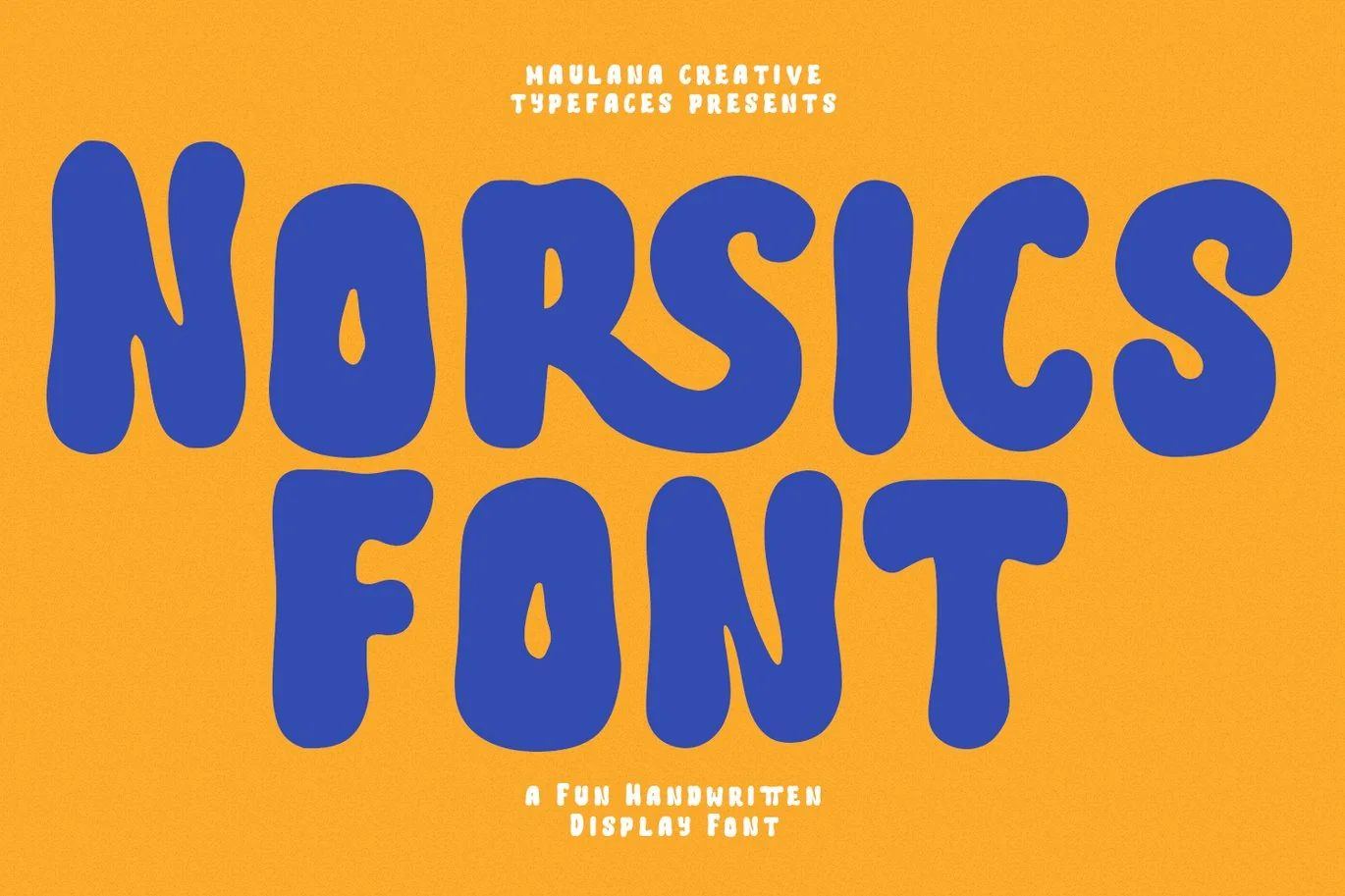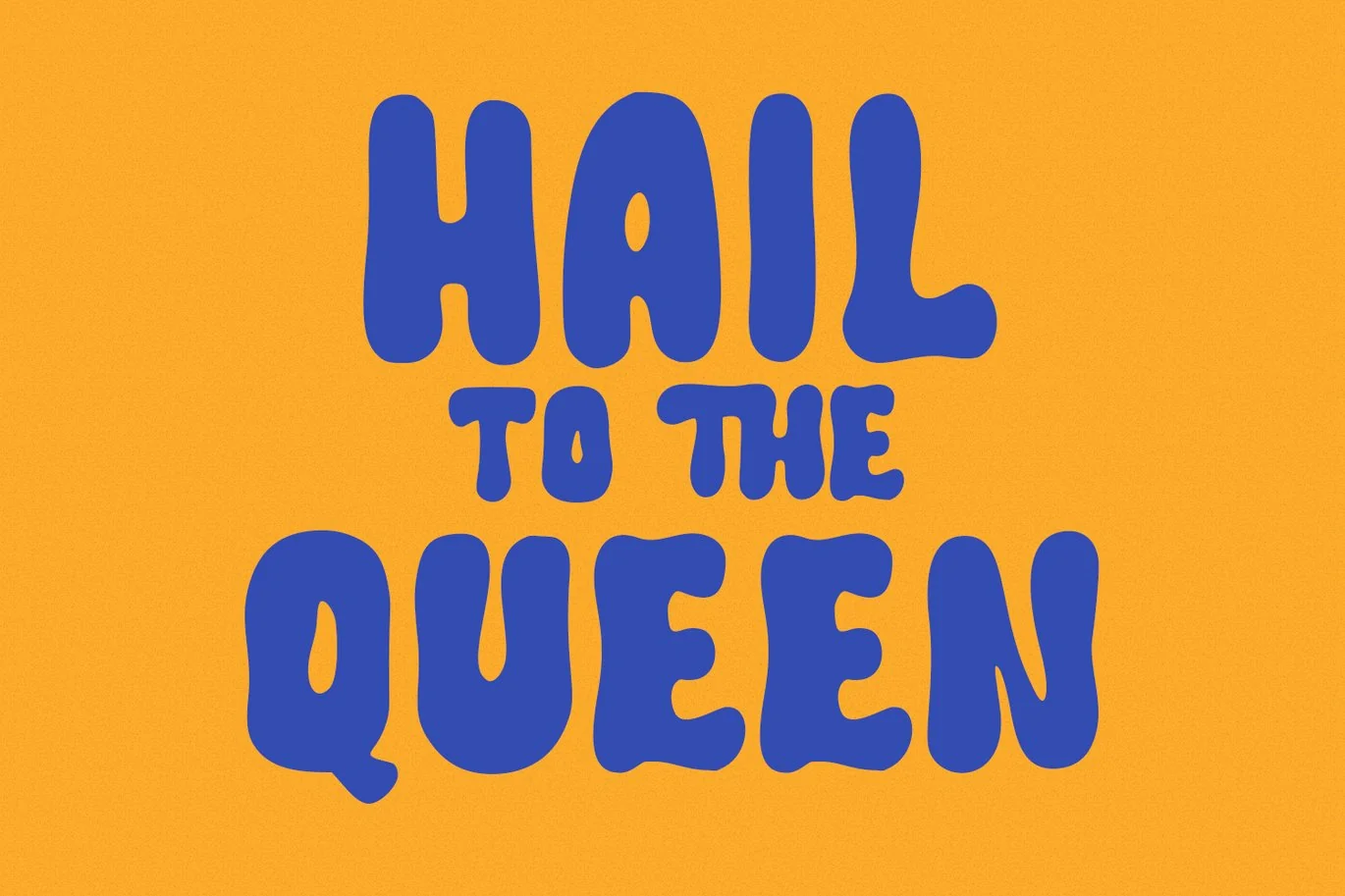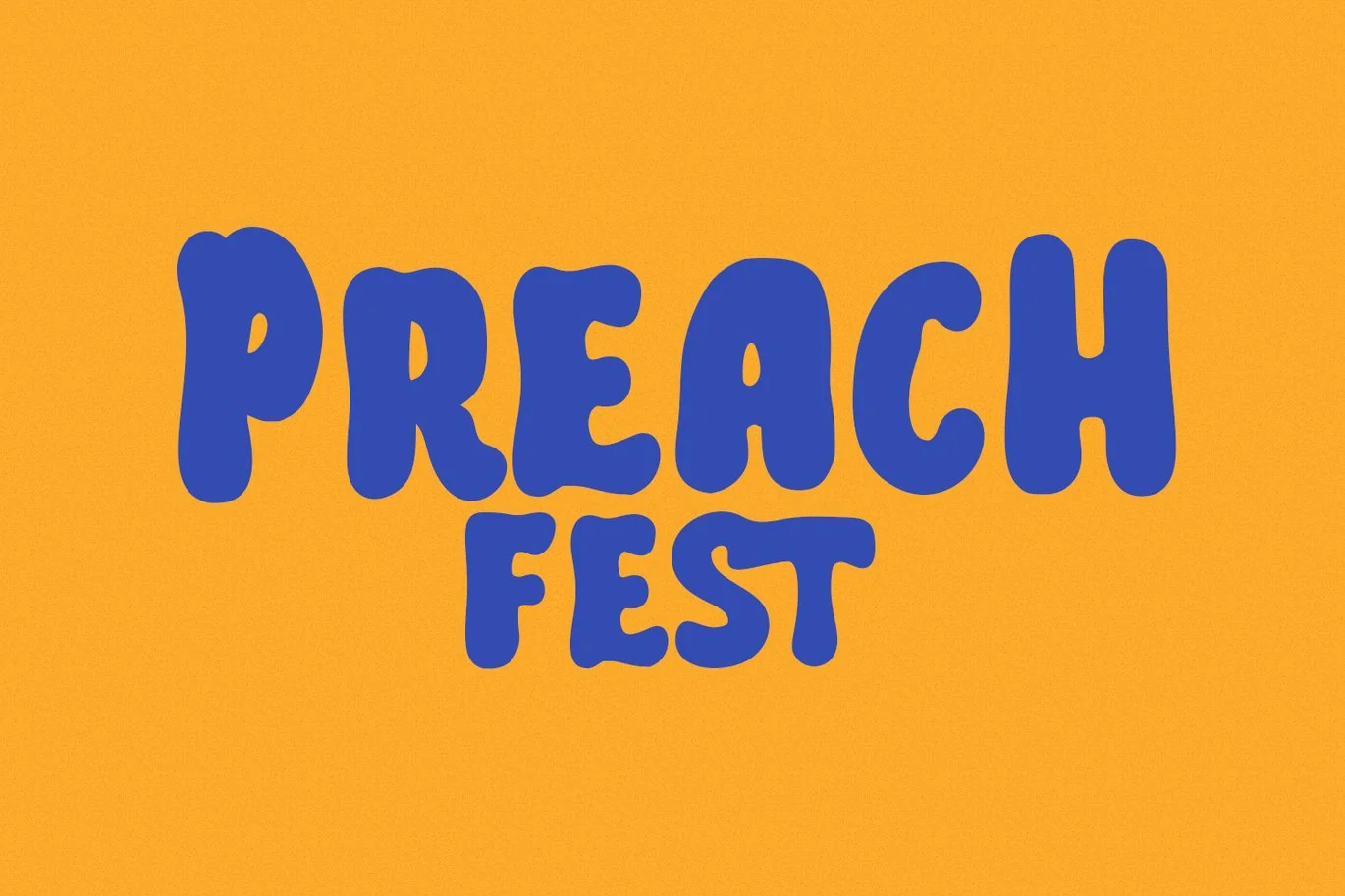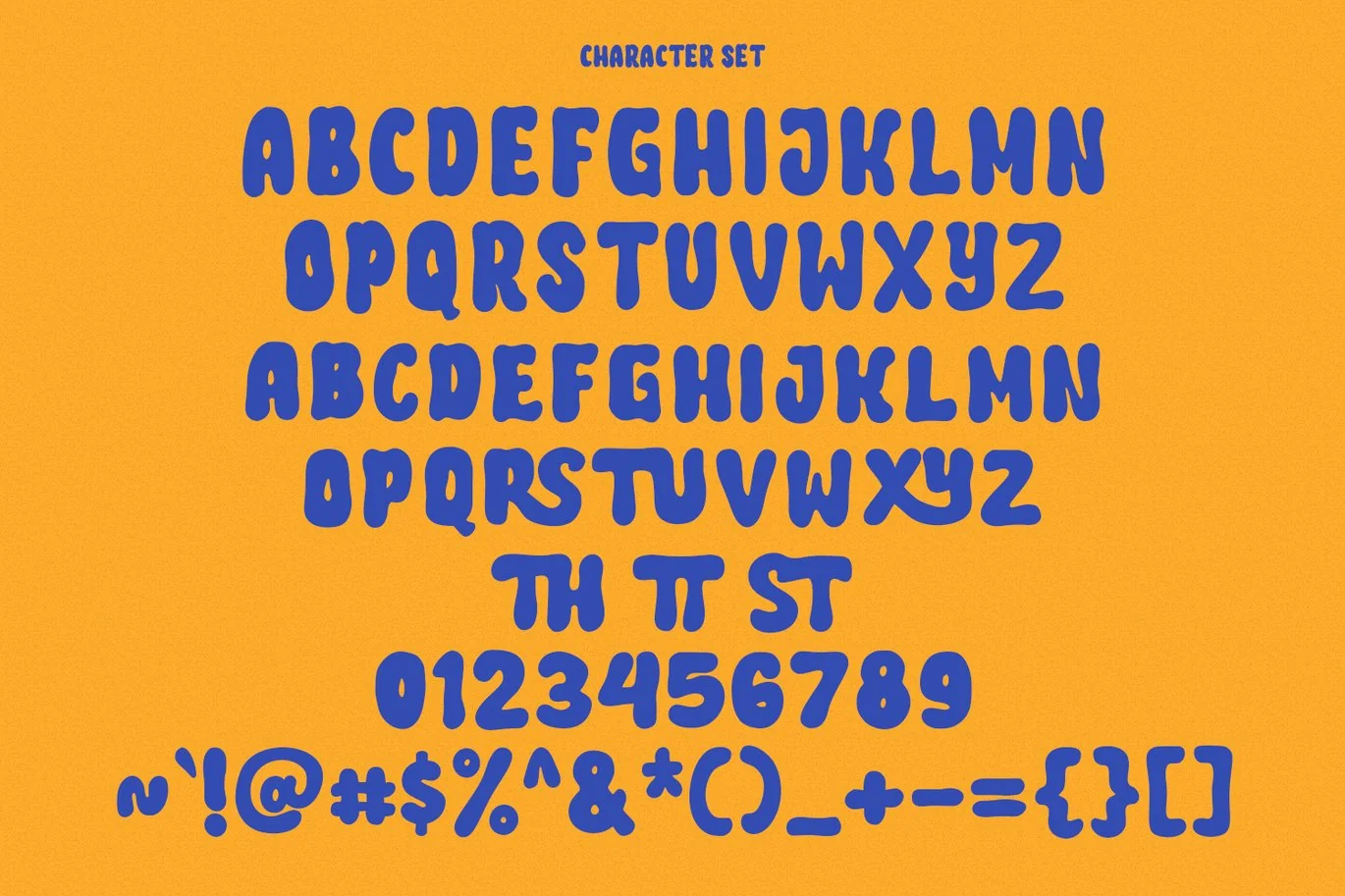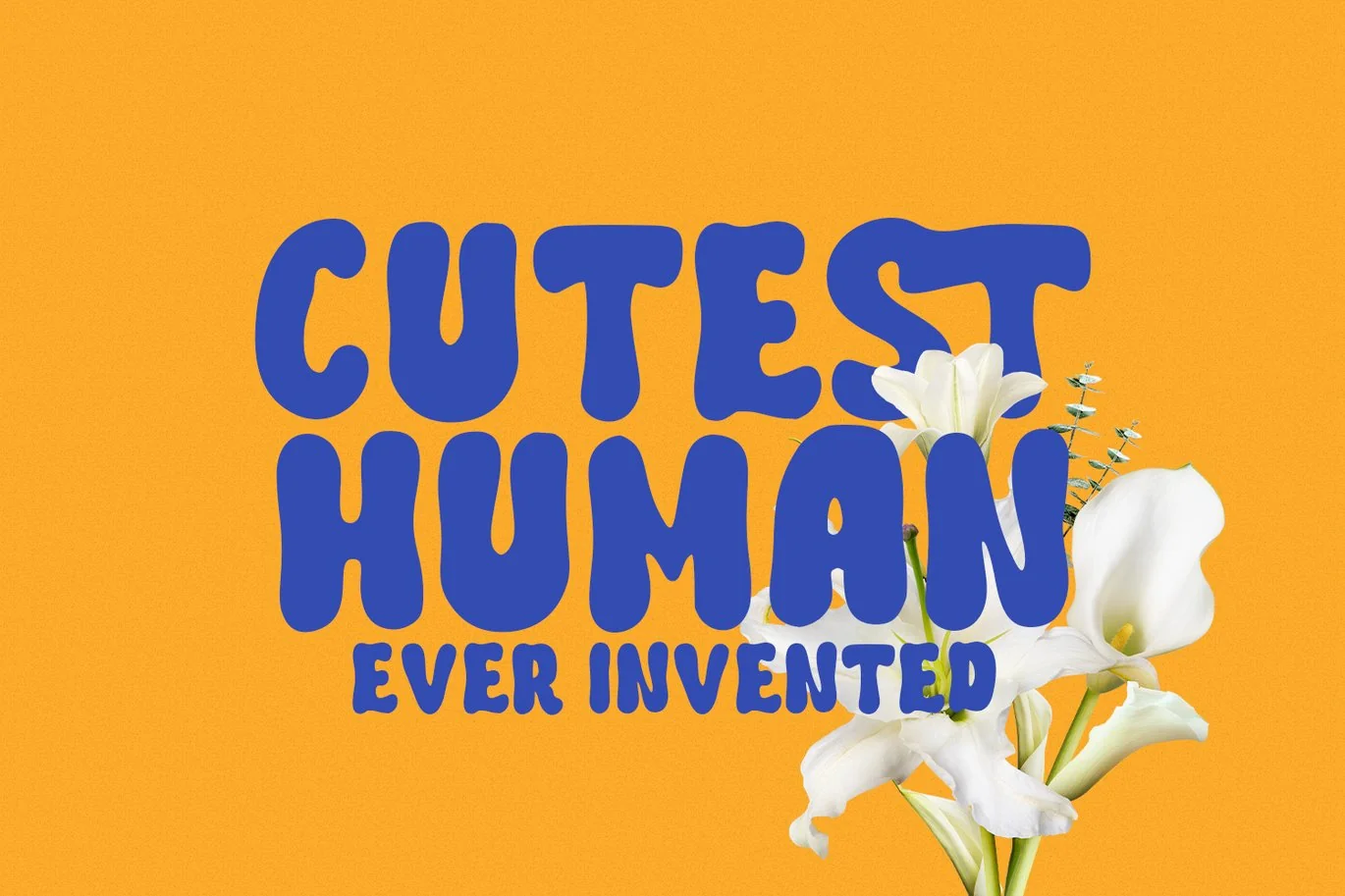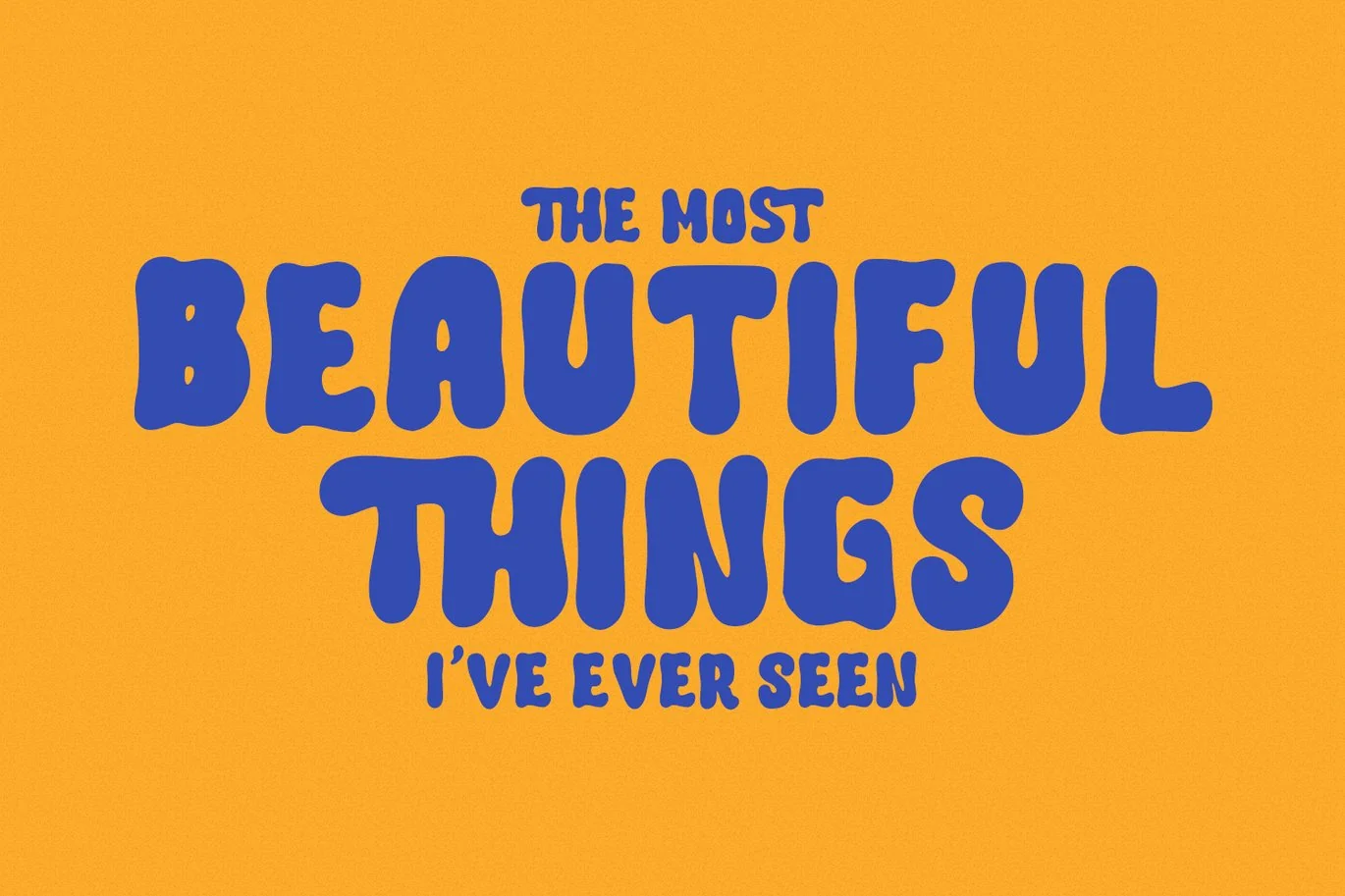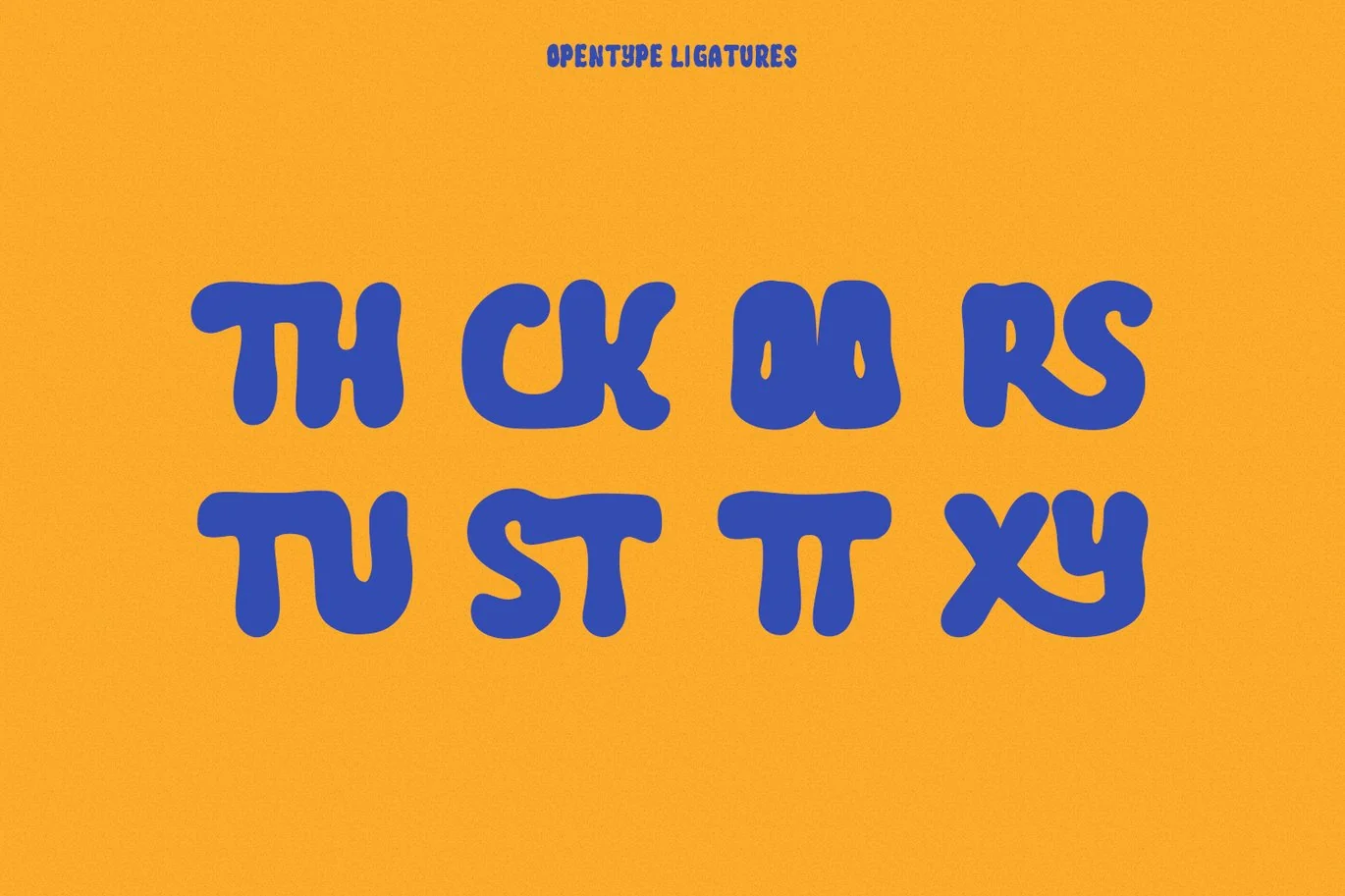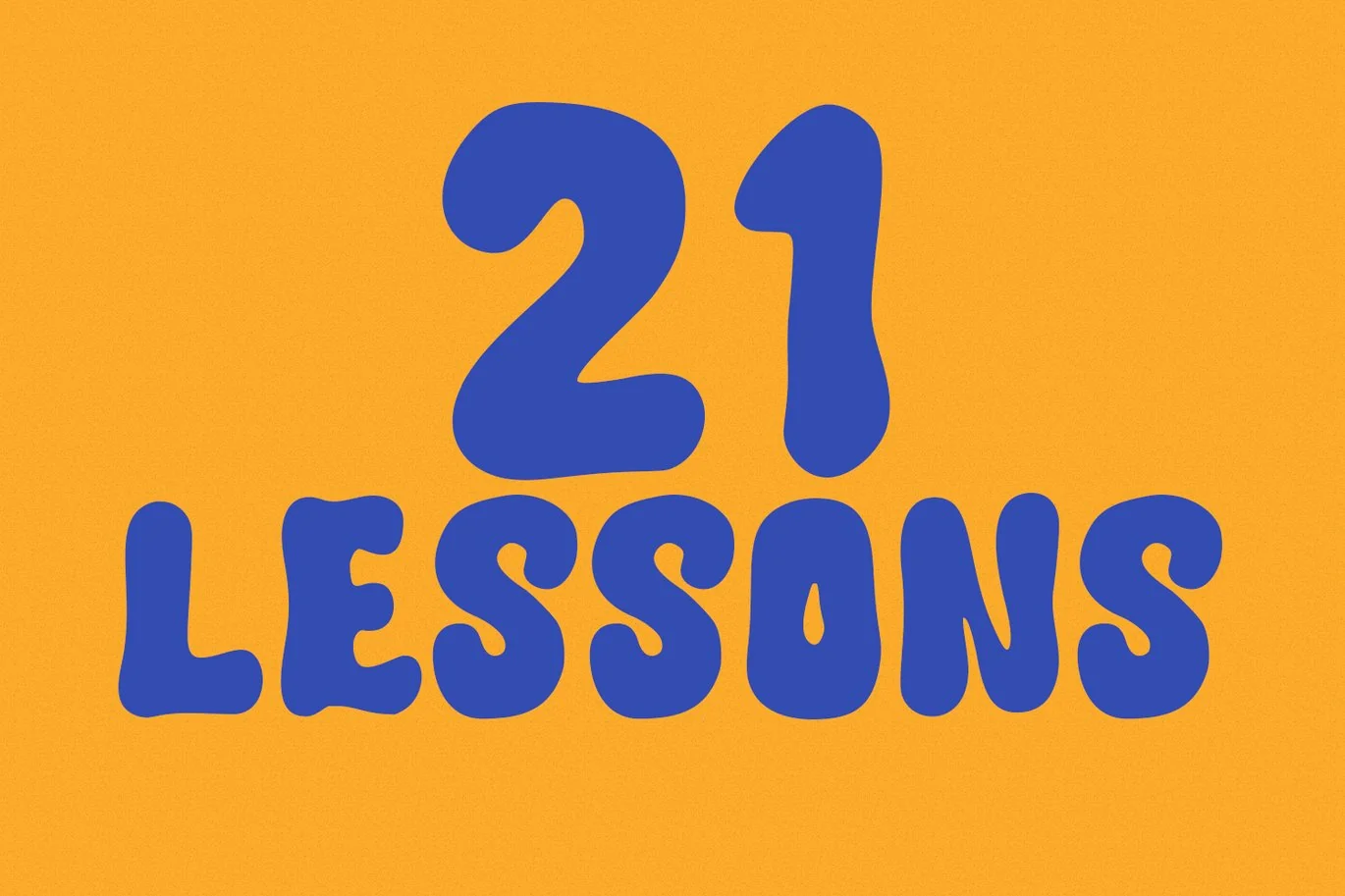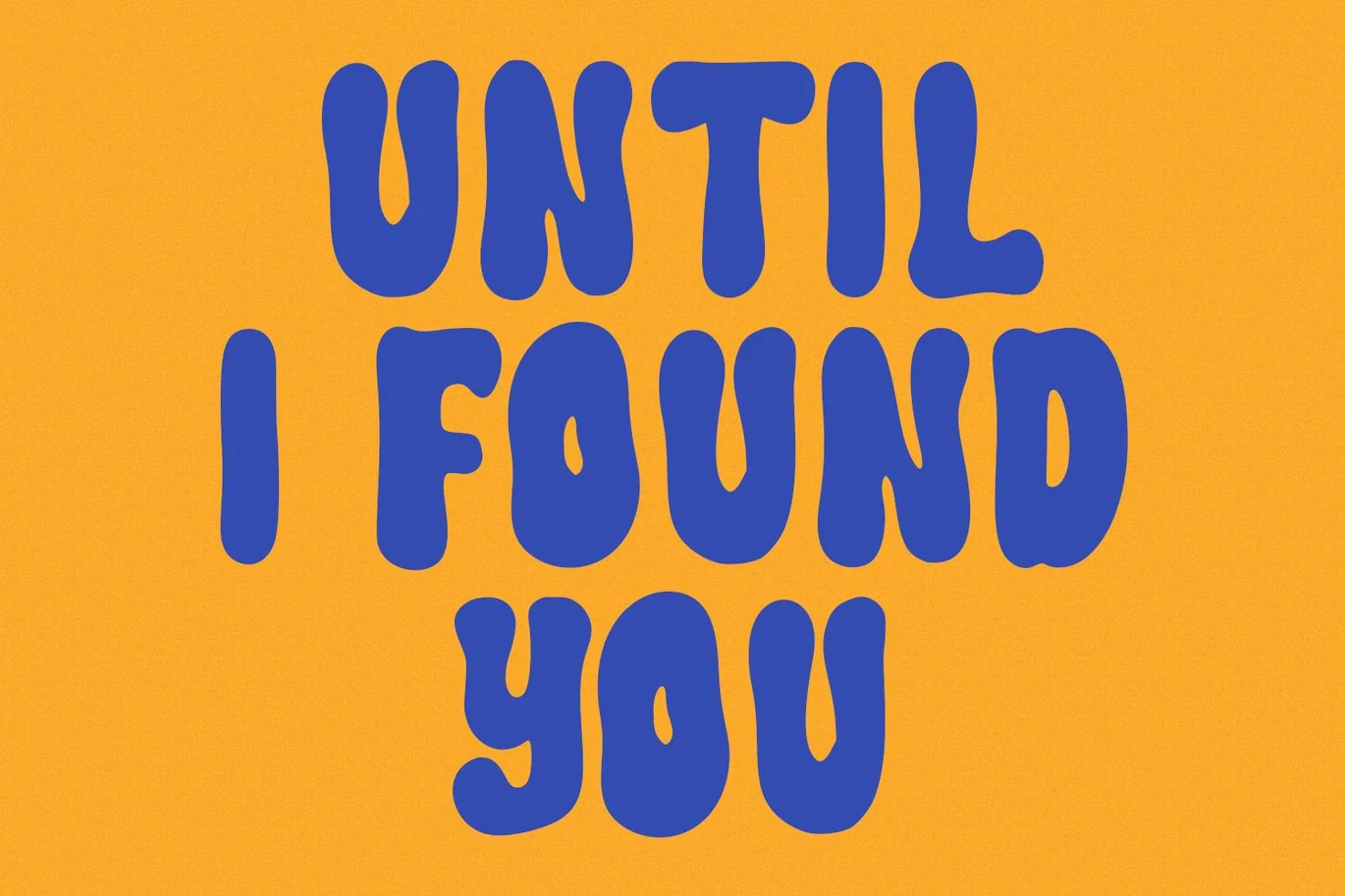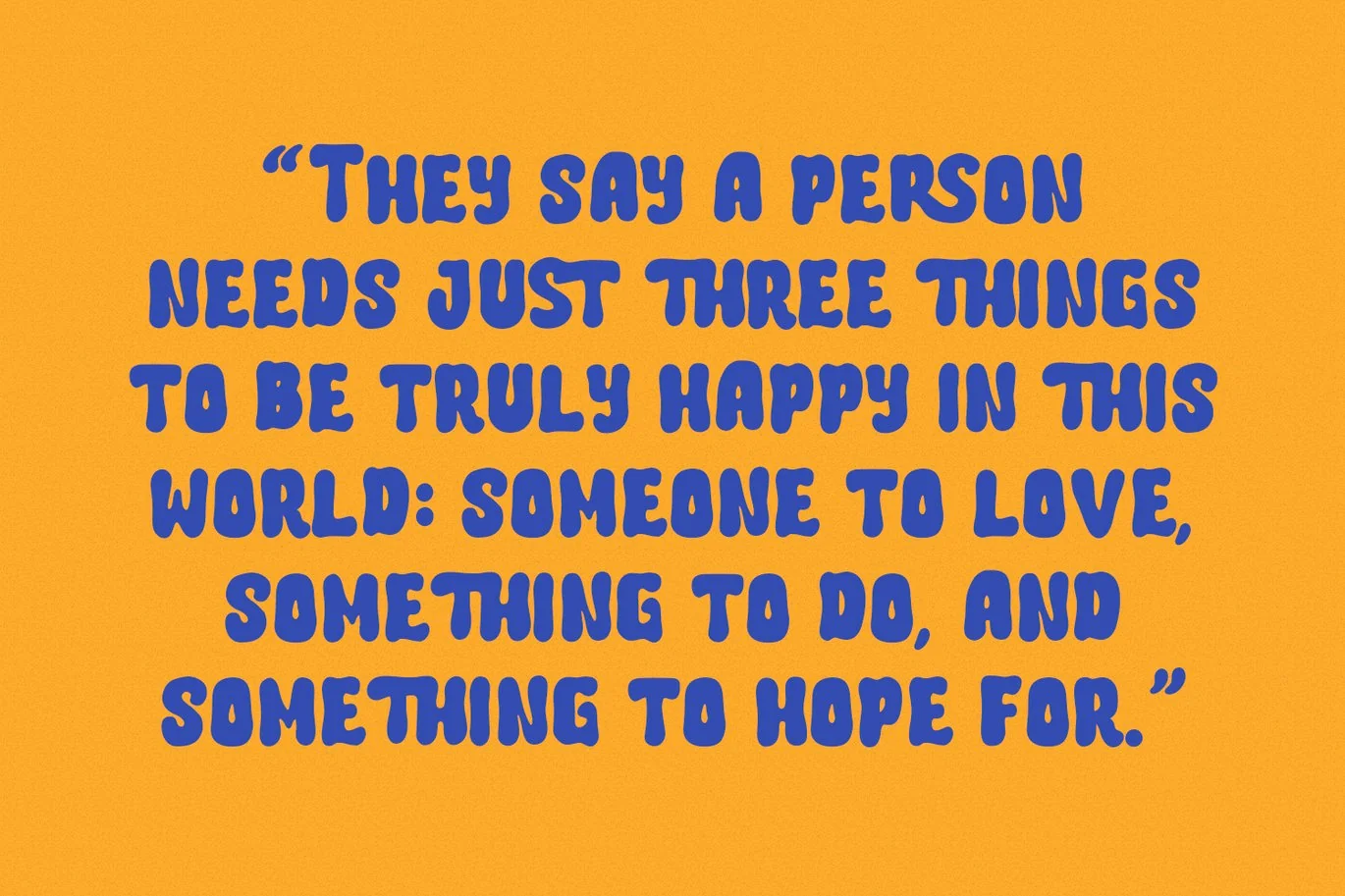
Norsics Handwritten Sans Display Font
Norsics is a casual modern handwritten display font. With wavy bold stroke, fun character. To give you an extra creative work. Norsics font support multilingual more than 100+ language. This font is good for logo design, Social media, Movie Titles, Books Titles, a short text even a long text letter and good for your secondary text font with sans or serif. Make a stunning work with Norsics font.